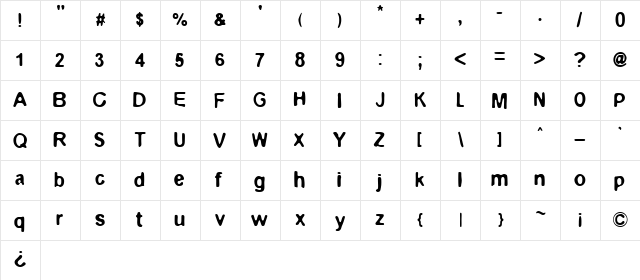
Epilog Normal Font Preview
Epilog Normal
Design Context for Epilog Typeface
Epilog offers clean, dependable letterforms without strong stylistic allegiance, making it a practical choice for designers who need flexibility.